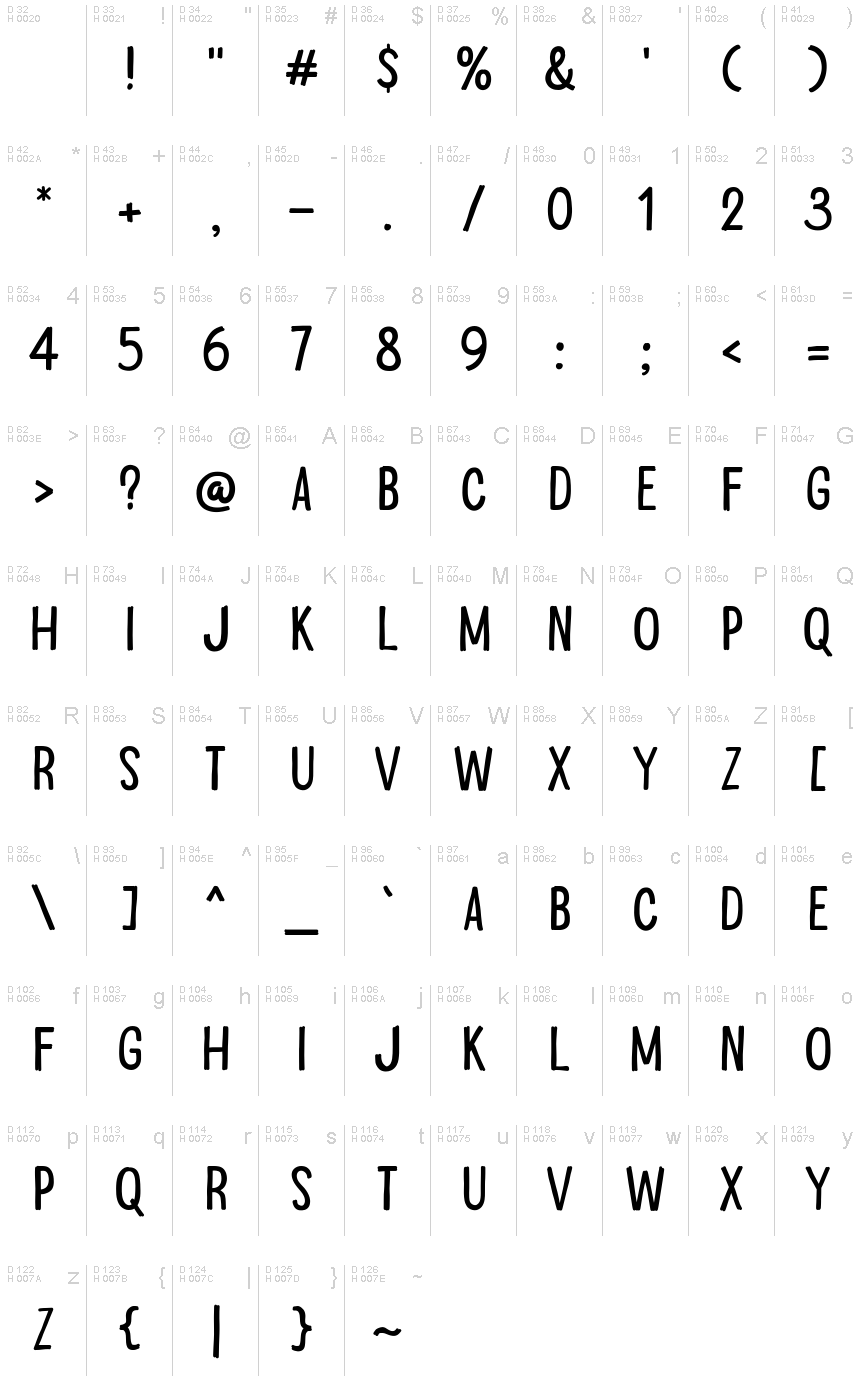
Long Today
Long Today is a captivating display font crafted by the talented designer Khurasan. This condensed cartoon-style typeface exudes a playful and whimsical charm, making it a delightful choice for a wide range of creative projects. With its distinctive, elongated letterforms and bold, expressive strokes, Long Today captures the imagination and invites the viewer to explore its unique visual narrative.
The font's condensed width and quirky, hand-drawn aesthetic lend it an unmistakable personality, perfect for adding a touch of playfulness and fun to headlines, logos, branding, and other display-focused design elements. Long Today's versatility allows it to seamlessly integrate into a variety of design contexts, from children's books and packaging to modern, quirky branding and advertising campaigns.